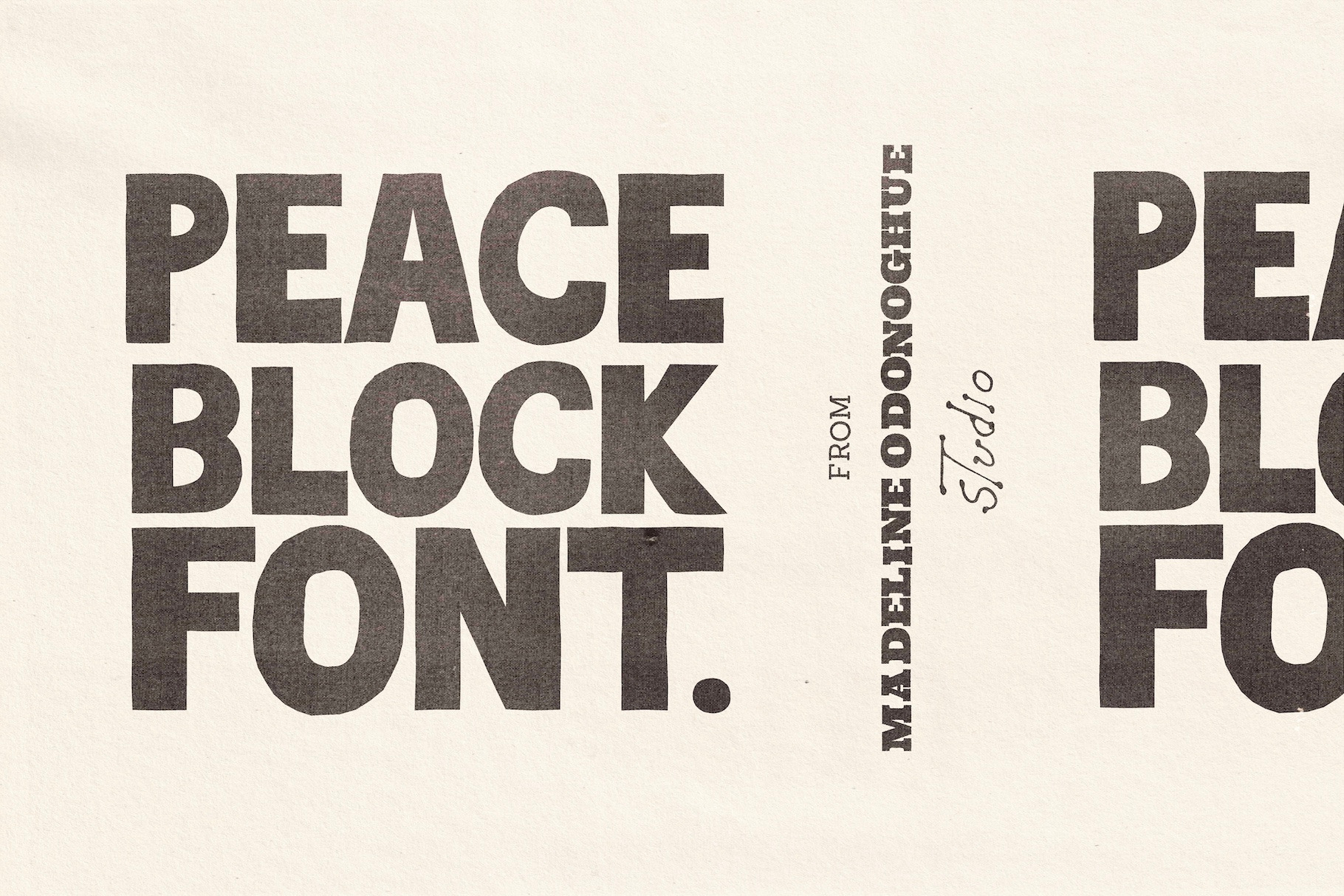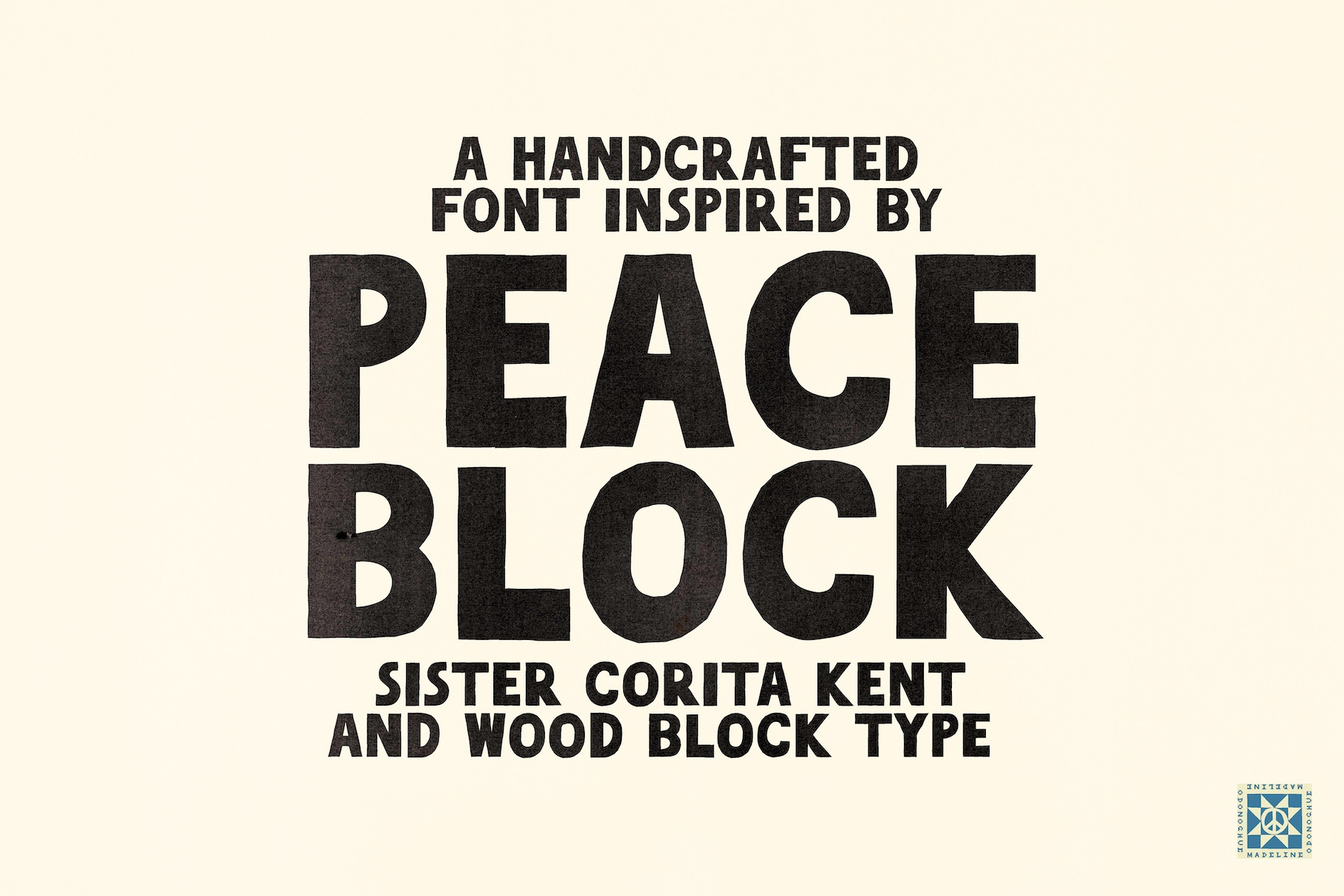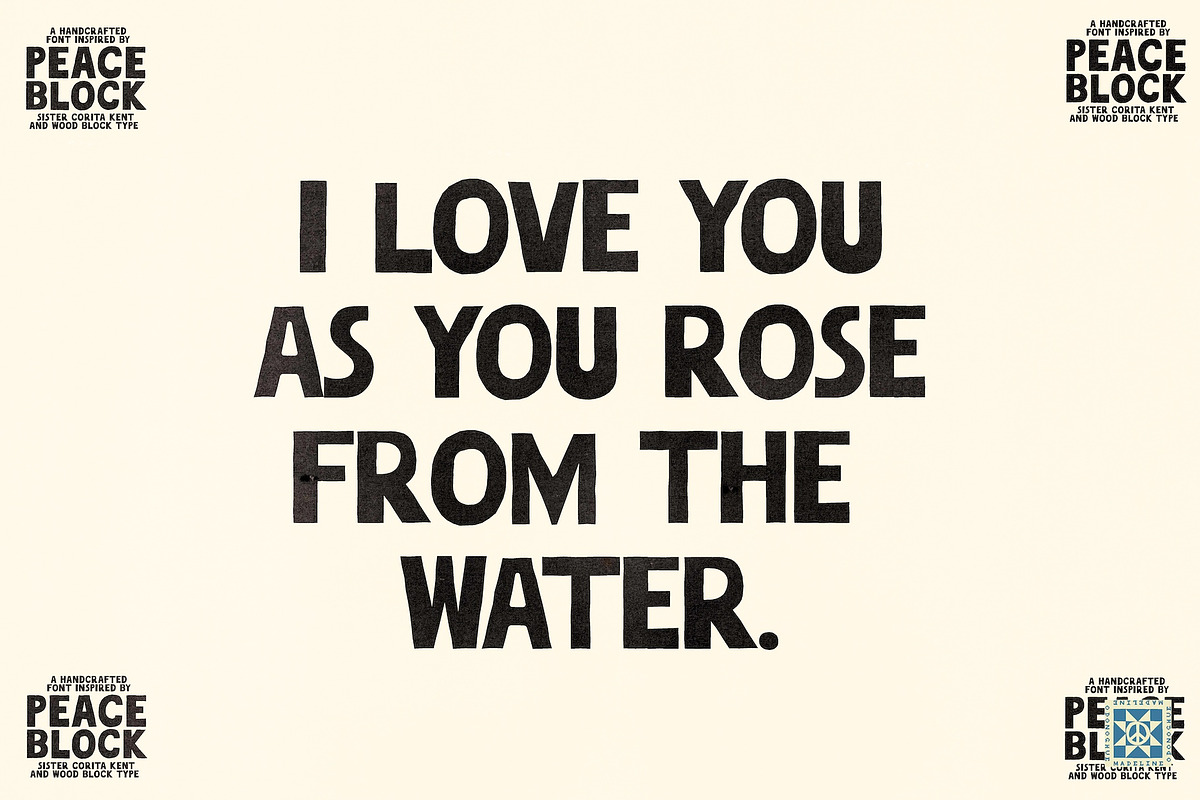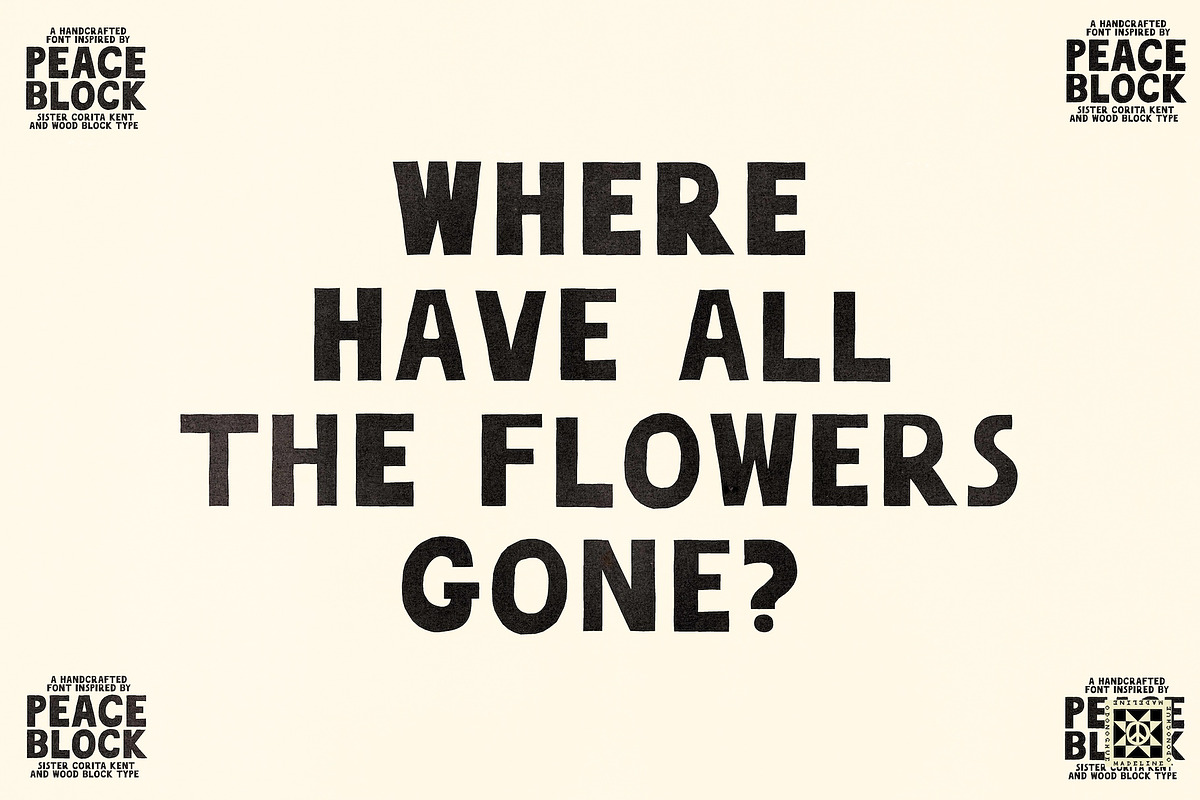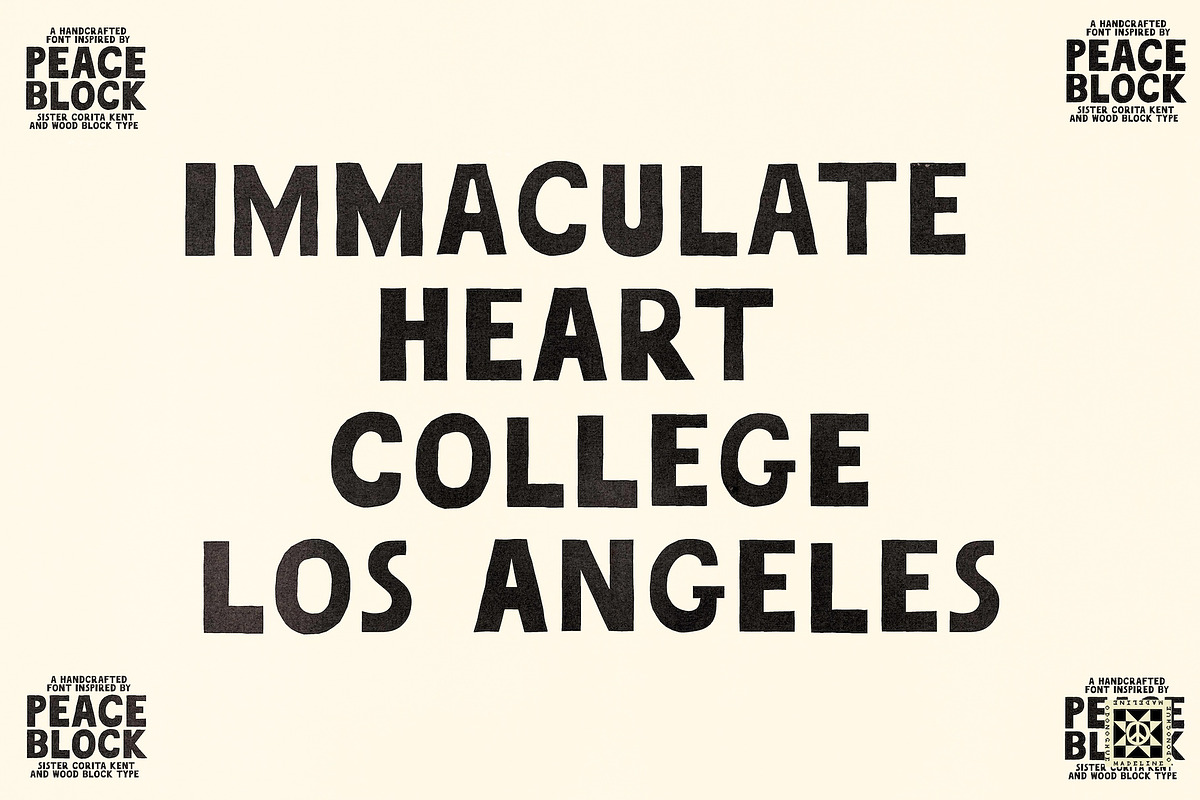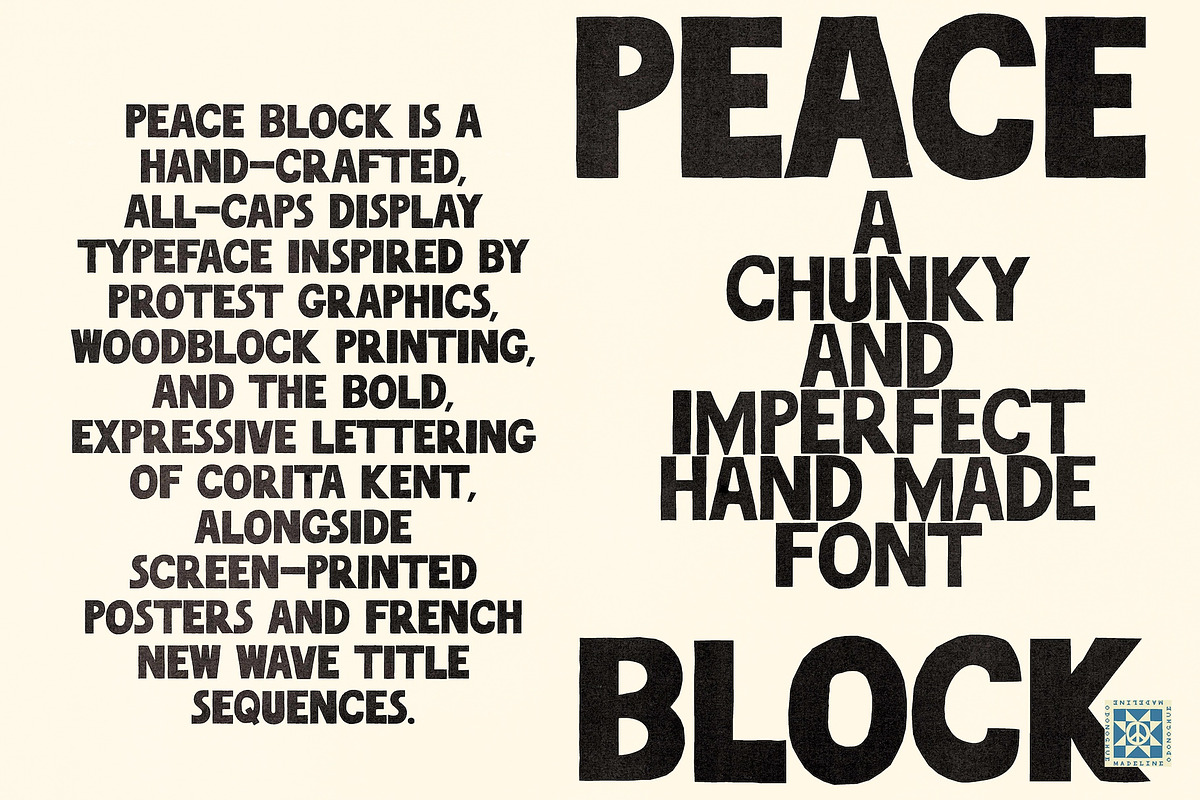
Peace Block Hand Made Bold Font
Peace Block is a hand-crafted, all-caps display font inspired by protest graphics, woodblock printing, and the bold, expressive lettering of Corita Kent, alongside screen-printed posters and French New Wave title sequences.
Designed and drawn entirely by hand, Peace Block embraces imperfection. Each letter is built from cut forms with irregular edges, giving the typeface a raw, human quality full of movement and character.
This is a font made for bold, expressive work — perfect for layering, overlapping, and creating compositions that feel spontaneous rather than polished. The contrast between thick uppercase forms and thinner lowercase variations allows for playful, irregular typography that feels alive on the page.
Logos & branding
Posters & protest-inspired graphics
Music artwork & band merchandise
Editorial design & creative direction
Packaging & independent brands
Social media graphics & campaigns
Uppercase A–Z (bold, block letterforms)
Lowercase a–z (a lighter, thinner variation for contrast and creative play)
Numbers 0–9
Minimal punctuation
Peace Block is designed for designers, creatives, and brands looking to create expressive, imperfect typography with a strong visual voice.